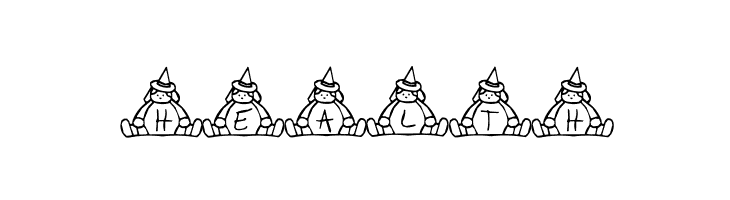
( Fonts by PutraCetol Studio )
A horror-themed decorative font with graveyard elements.
( Fonts by PutraCetol Studio )
Bold, angular display font with bat motifs for a spooky effect.
( Fonts by PutraCetol Studio )
A jagged, hand-drawn display font with a spooky, playful vibe.
( Fonts by PutraCetol Studio )
Dripping, horror-themed decorative display font.
( Fonts by PutraCetol Studio )
Bold, spiky, distressed display font with a horror-inspired look.
( Fonts by Scratchones )
A tall, dripping decorative font ideal for horror or Halloween themes.
( Fonts by PutraCetol Studio )
Bold, dripping letters with ghost motifs for a spooky, playful effect.
( Fonts by PutraCetol Studio )
Dripping, skull-embellished decorative font for horror or Halloween themes.
( Fonts by Scratchones )
A dripping, spooky script font with a playful Halloween vibe.
( Fonts by Helotype )
A bold, bone-themed decorative font with a spooky, playful style.
( Fonts by Maulana Creative )
Bold, brush-style script with a modern, handwritten look.
( Fonts by Nabila )
( Fonts by Alpaprana Studio )
( Fonts by Kong Font )
( Fonts by Uddi Uddi )
A bold, decorative font with an organic, splattered appearance.